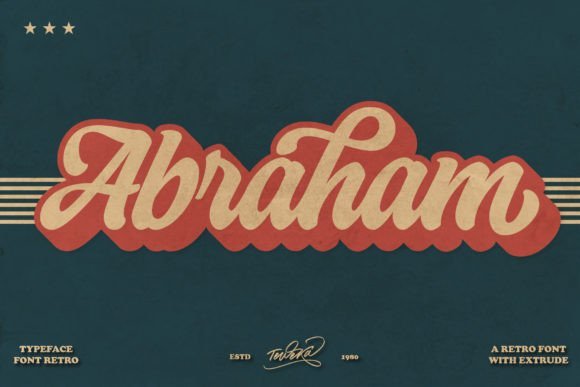
The Birth of a Timeless Design
Remember the moment when you stumbled upon the perfect font that instantly elevated your design project from good to great? For designers, that moment is often a game-changer. It’s the moment when creativity flows, and the possibilities seem endless.
Introducing the Abraham Font, a masterfully crafted script typeface that’s steeped in retro charm. With its balanced elegance and unique flair, this font is perfect for creating eye-catching logos, badges, emblems, and packaging that will leave a lasting impression. Whether you’re designing for a brand, a product, or a special occasion, the Abraham Font is an invaluable asset in your design toolkit.
Abraham Font Key Features
- Unique Characteristics: Elegant script font, perfect for invitations, weddings, and other formal events
- Font Style: Script, Calligraphy, and Elegant
Abraham Font Review
I recently had the chance to work with the Abraham font, and I must say, it’s a unique and interesting addition to any design project.
- The Abraham font has a distinct, elegant feel that works particularly well for luxury or high-end branding.
- The font is highly customizable, allowing designers to fine-tune its look and feel to suit their specific needs.
- The font is well-suited for use in both digital and print media.
- The Abraham font can appear somewhat over-the-top or pretentious if not used judiciously.
- The font may not be the best choice for body text or extended blocks of text due to its ornate nature.
Overall, I think the Abraham font is a great choice for designers who want to add a touch of sophistication and elegance to their work. However, it’s essential to use it thoughtfully and consider the context in which it will be used.
Practical Application Guide for Abraham Font
Abraham Font is particularly useful for creating vintage-inspired designs in Canva.
- Use the font to create vintage-inspired designs, such as distressed text or hand-lettering.
Abraham Font is a great choice for creating unique and eye-catching designs in Adobe Photoshop or Illustrator.
Abraham Font is a versatile font that can be used in a variety of contexts, from presentations to documents.
Tips for Getting the Most Out of Abraham Font
Here are a few tips for getting the most out of Abraham Font:
- Experiment with different font sizes and styles to achieve the desired look.
Great Vibes is a elegant, script font that’s perfect for adding a touch of sophistication to your designs. It’s ideal for use in titles, headings, and other prominent text elements where you want to make a statement.
Compared to Abraham Font, Great Vibes is more refined and polished, making it better suited for high-end branding and advertising materials. While Abraham Font has a vintage feel, Great Vibes has a more modern, upscale look.
Exploring Creative Projects with Abraham Font
Create a nostalgic travel poster using Abraham Font to evoke a sense of adventure and nostalgia.